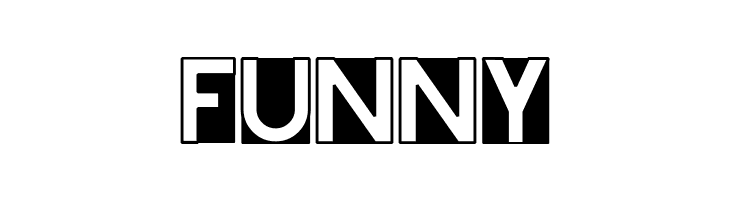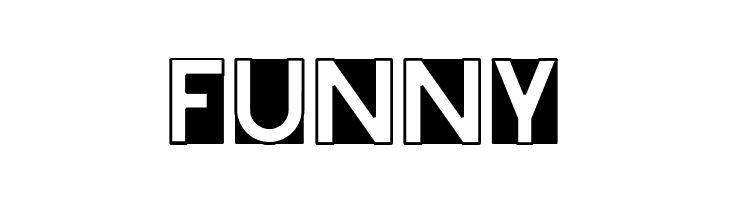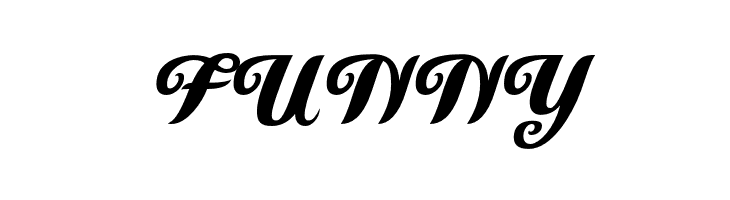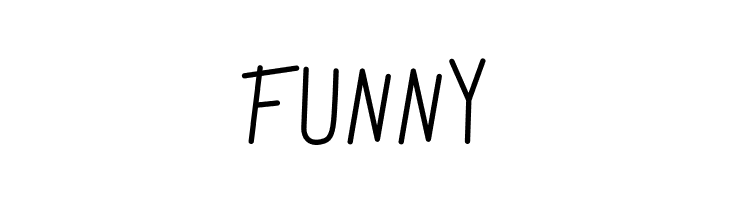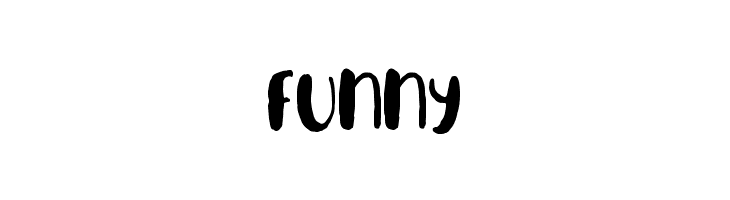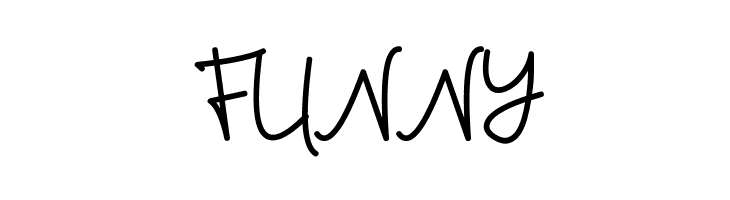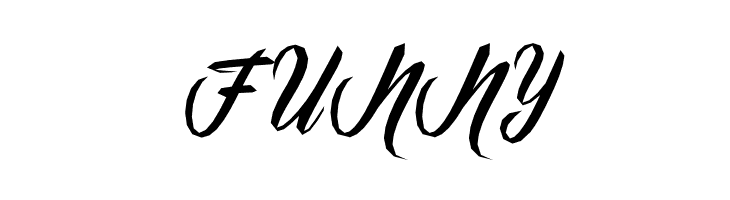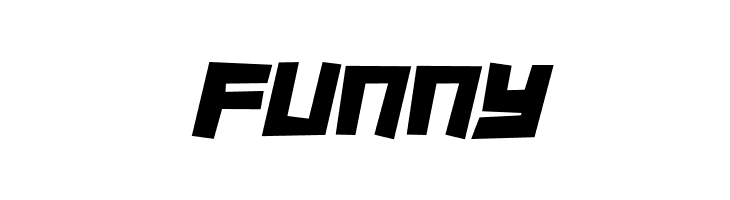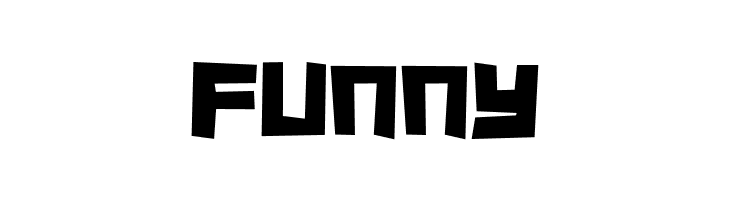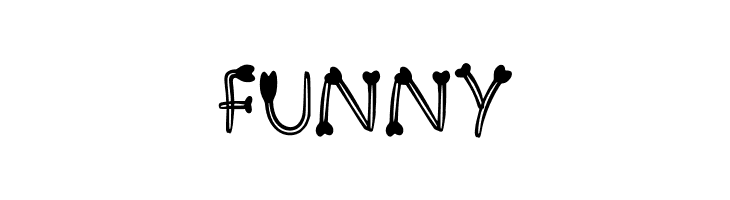
A playful, hand-drawn font with decorative patterns inside each character.
A playful font with heart-shaped accents, perfect for conveying warmth and love.
Playful handwritten script font.
A playful, rounded font with a hand-drawn, whimsical style.
A playful, handwritten font with smooth, rounded edges and a casual style.
A playful, bold font with rounded, bubbly characters.
A playful, hand-drawn script font with a whimsical and lively style.
A playful, handwritten font with rounded, smooth letterforms.
A playful, handwritten font with rounded edges and a casual style.
A bold, handwritten brush-style font with a playful and artistic flair.
A modern, elegant script font with flowing, interconnected strokes.
A bold, decorative script font with elegant swashes and playful curves.
A monospaced font with a classic typewriter style and medium contrast.
A modern serif font with clean lines and elegant serifs.
A bold, geometric font with high contrast and modern style.
A bold, geometric font with strong negative space and uniform character design.
Bold, geometric font with a unique cut-out effect for striking visual impact.
Bold, geometric font with high contrast and enclosed characters.
A bold, angular font with a modern, cut-out style.
A bold, angular, and modern italic font with a dynamic and edgy style.
A playful, cut-out style font with bold, jagged edges.
A bold, stencil-like font with cut-out sections and a strong industrial feel.
A hand-drawn, textured font with a woodcut-like effect.
A bold, playful font with a hand-drawn, irregular style.
A bold, italic font with dynamic, slanted letterforms and consistent stroke thickness.
A playful, hand-drawn font with a whimsical and artistic style.
An elegant script font with flowing, ornate characters and sophisticated swashes.
A refined script font with elegant, flowing cursive letterforms.
A dynamic and flowing script font with elegant, cursive letterforms.
A bold, cursive font with elegant, flowing characters.
A dynamic, expressive handwritten font with fluid strokes and artistic flair.
A playful, handwritten font with a friendly and whimsical style.
A playful handwritten font with smooth, flowing curves and a lively appearance.